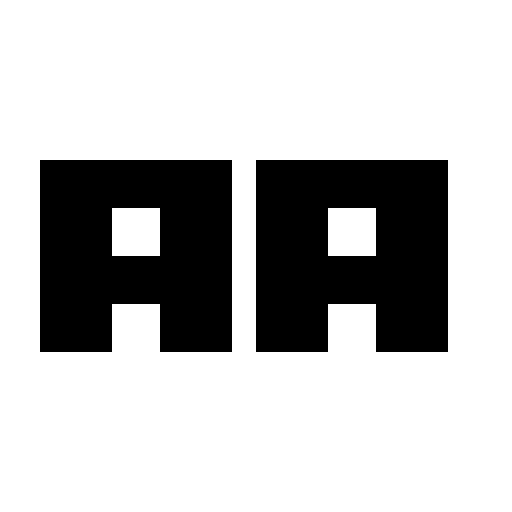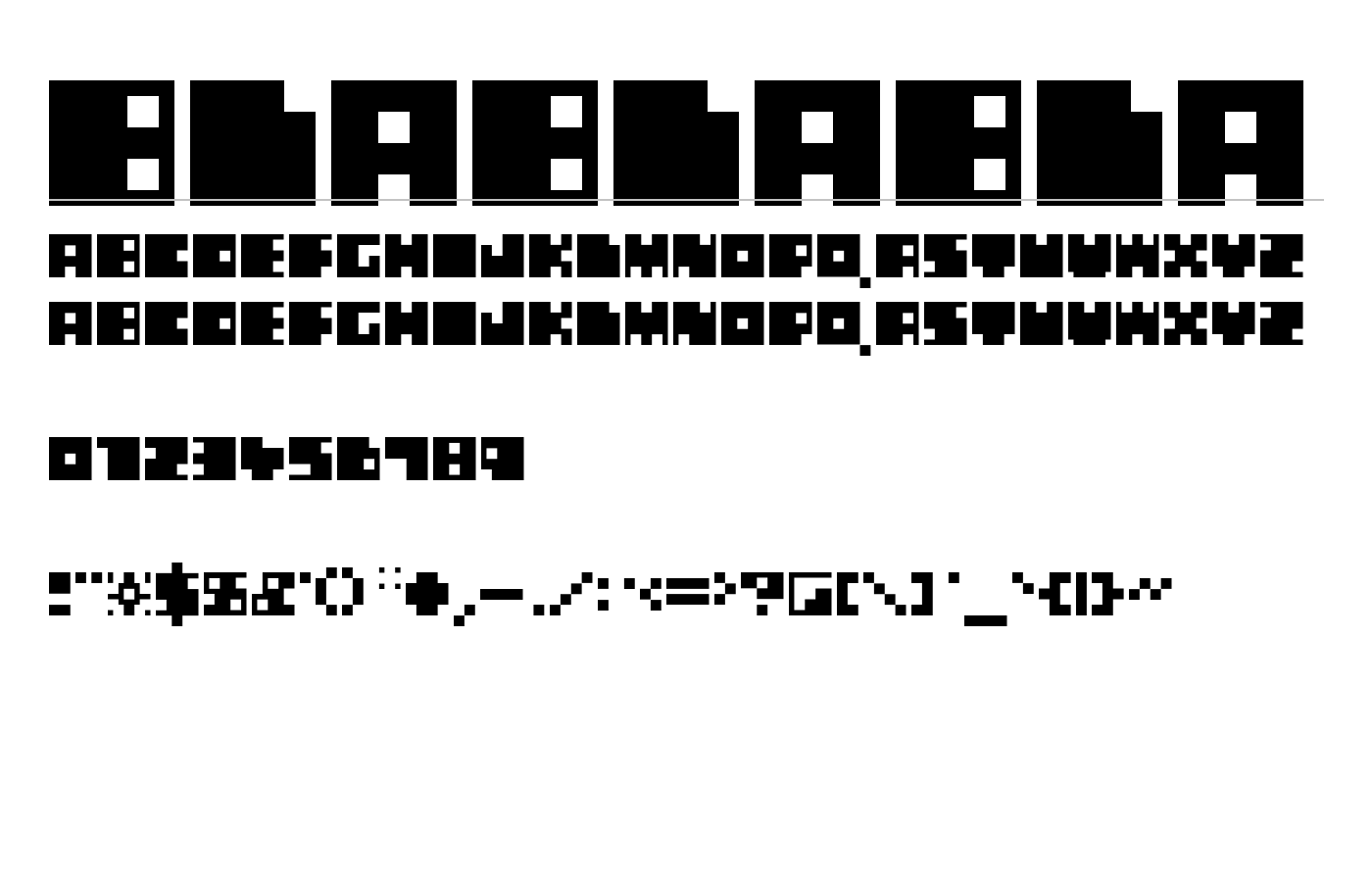
Blablabla Font is a bold, blocky sans serif typeface with a distinctly geometric and pixelated style, featuring uniform stroke widths and sharp corners. Its heavy weight and condensed proportions create a strong, impactful presence, making it ideal for retro digital designs, video game graphics, and attention-grabbing headlines. This font’s unique, almost mechanical character suits creative projects that want to evoke a tech-savvy, playful, and modern feel.
blablabla Font
About blablabla Font